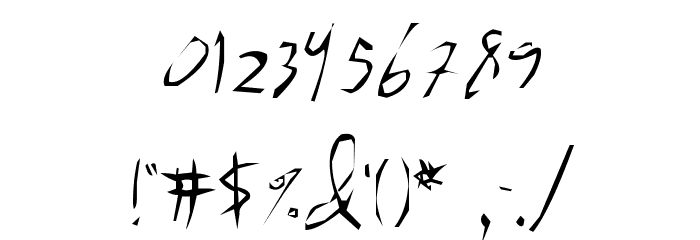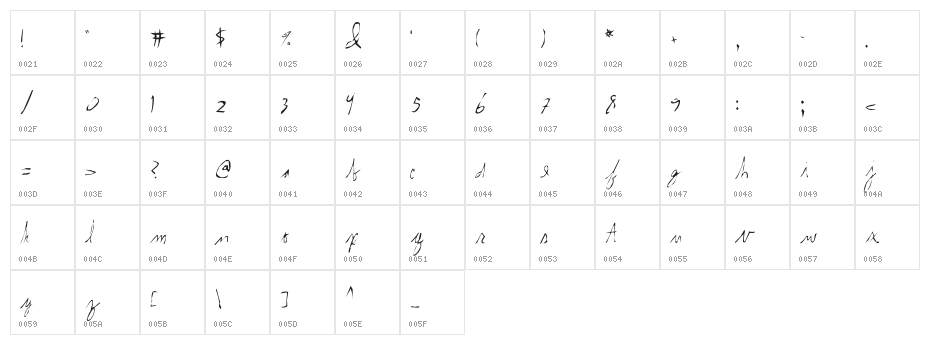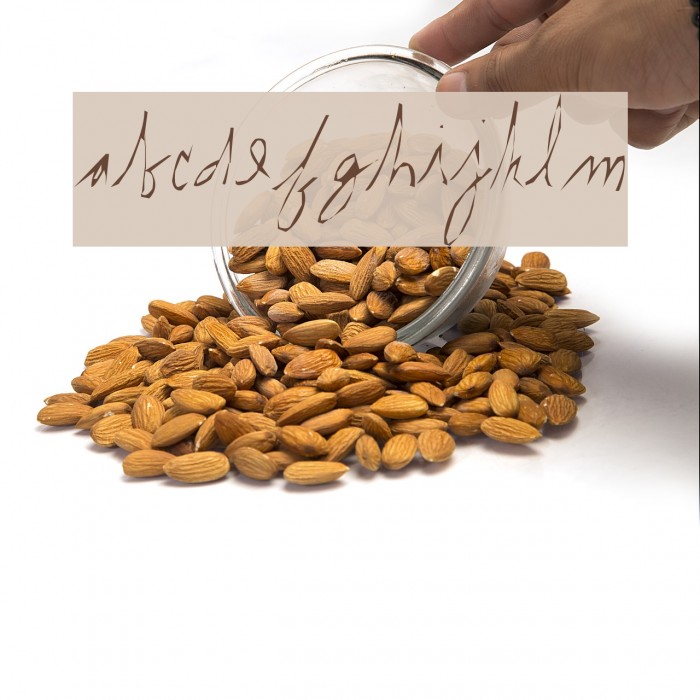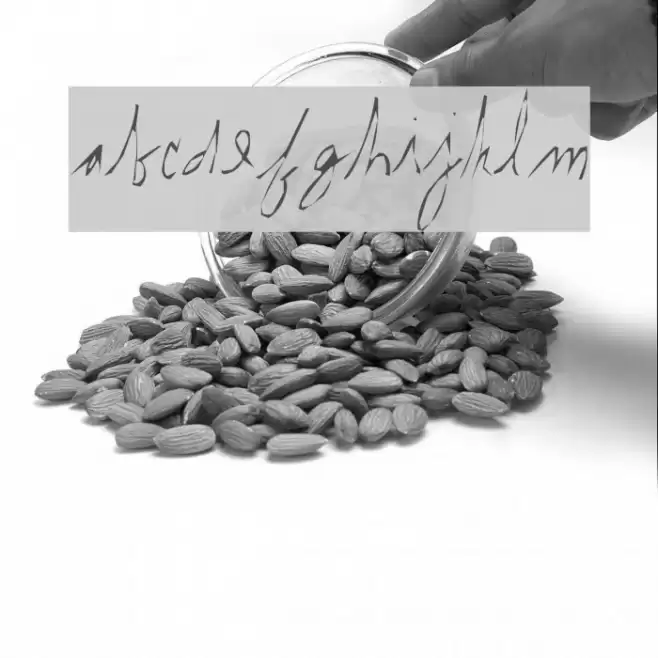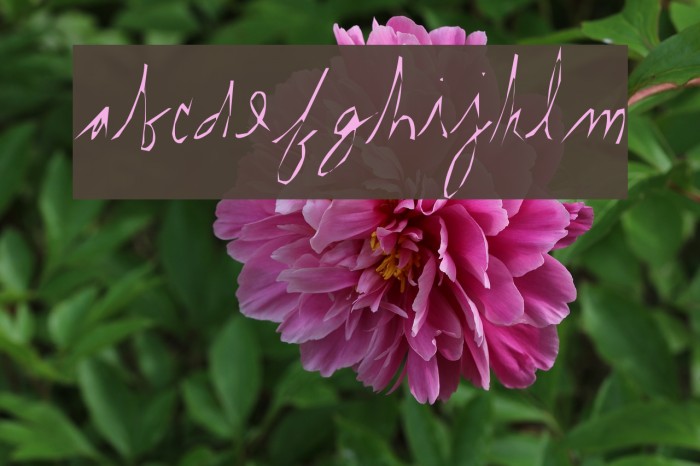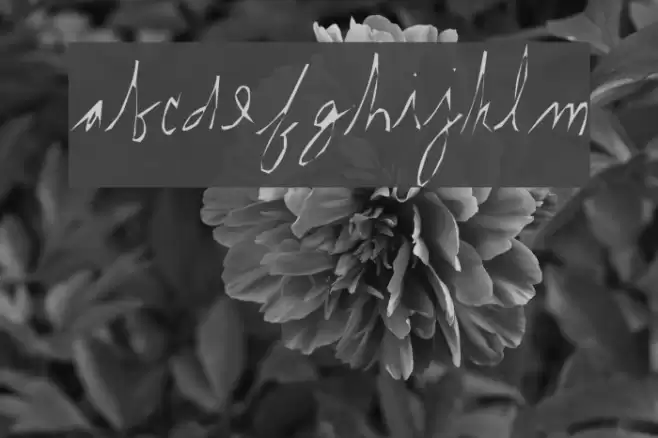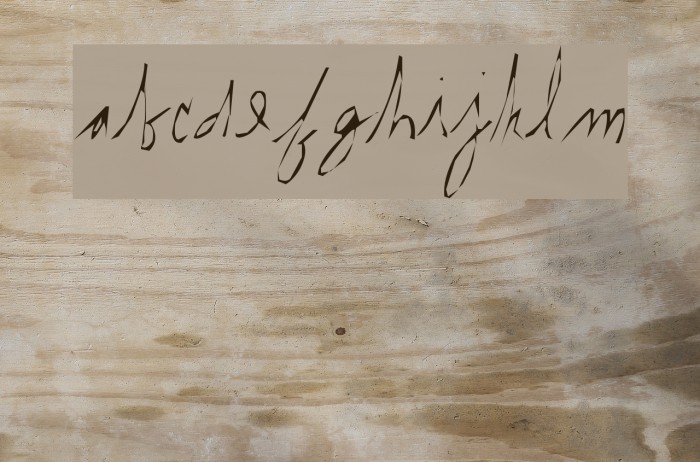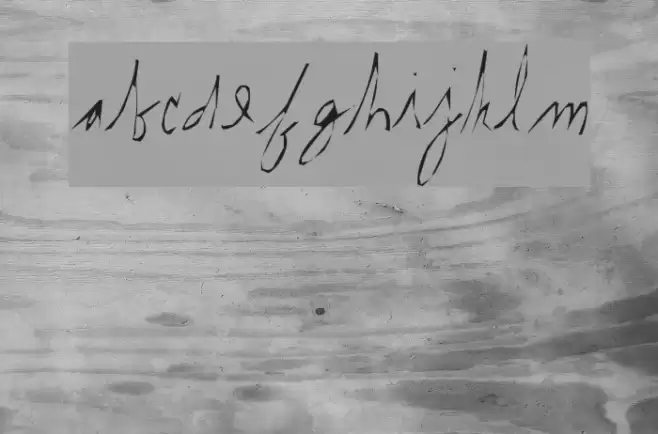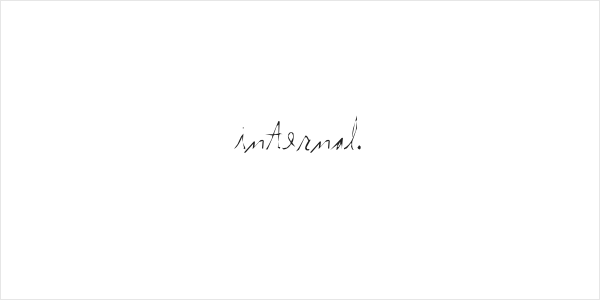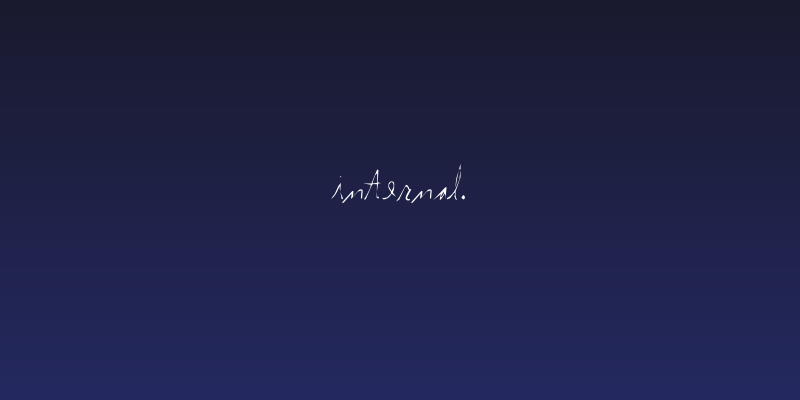
internal. Font
| 全体的なスタイル | Artistic, Expressive |
| 用途 | Invitations, Artistic Branding, Personal Blogs |
| おすすめプロジェクト | Ideal for creative projects such as invitations, greeting cards, artistic branding, and personal blogs. |